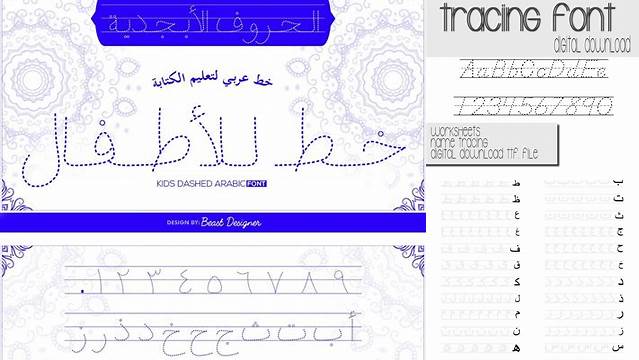
Free Arabic Tracing Font TTF Download For Beginners
Hey everyone! Looking for a fun and effective way to learn Arabic handwriting? You're in the right place! This article dives into everything about Arabic tracing fonts, offering you a fantastic free TTF download to get you started. We'll explore why tracing fonts are awesome for beginners, how to use them, and where to find the best resources. Get ready to level up your Arabic writing skills!
What are Arabic Tracing Fonts and Why Use Them?
Let's start with the basics, shall we? Arabic tracing fonts are specially designed fonts where the letters have a dashed or dotted outline. Think of them as the training wheels for your Arabic calligraphy journey. They're super helpful because they allow you to trace over the letters, guiding your hand and helping you learn the correct shapes and strokes. They are a fantastic tool, especially if you're a beginner. Using Arabic tracing fonts is like having a personal tutor guiding your hand. The dotted or dashed lines of the letters provide a clear path for you to follow, making it easier to learn the correct shapes and proportions. This method is particularly effective for beginners who may be unfamiliar with the complex curves and connections of Arabic script. By repeatedly tracing these letters, you develop muscle memory, which is crucial for handwriting. The practice helps build a strong foundation, allowing you to move on to freehand writing with confidence. Furthermore, tracing fonts make the learning process fun and engaging. They transform the often-challenging task of learning a new script into an interactive and enjoyable activity. This is a great way to make the learning process less daunting and more appealing. Imagine being a kid again, tracing your favorite cartoon characters - it is the same principle applied here. Tracing fonts are an excellent way to get started with Arabic handwriting. You'll quickly improve your penmanship and gain confidence in your ability to write this beautiful script. The repetitive nature of tracing helps in memorization, aiding in the recognition of letter forms and their various positions within words. This approach can be complemented with other learning methods like calligraphy. By combining these tools, you're providing a comprehensive approach to your learning. So, if you are thinking about learning Arabic, this is where you should start!
Benefits of Using Arabic Tracing Fonts
Alright, let's get into why these fonts are so beneficial. Firstly, they are perfect for beginners. Arabic tracing fonts provide a structured way to learn the Arabic alphabet. Secondly, they enhance muscle memory. Tracing the letters repeatedly helps your hand get used to the shapes and strokes. And thirdly, they are a confidence booster. As you trace and improve, you'll feel a sense of accomplishment. Using tracing fonts also brings the benefits of making learning the Arabic alphabet easier, building muscle memory, and boosting your confidence. When you trace the letters, you're not just copying shapes; you're internalizing the patterns, which creates muscle memory. This will prove very helpful when you start to write freehand. Furthermore, mastering Arabic handwriting can be an incredibly rewarding skill. It opens doors to a deeper appreciation of Arabic culture and can make it easier to read and understand written Arabic. The act of handwriting also engages your brain in a different way than typing, which can help improve memory and cognitive function. Arabic tracing fonts make the initial steps less intimidating and more enjoyable. The structured practice helps you avoid common mistakes and build good habits from the start. Another advantage of using Arabic tracing fonts is that they make the learning process more accessible. They offer an easy way to get started without needing expensive calligraphy tools or extensive knowledge of artistic techniques. You can simply download the font, print it out, and start practicing. This makes it an ideal resource for anyone with a computer and a printer. Finally, using tracing fonts can be a great way to integrate Arabic language learning into your daily routine. A few minutes of tracing each day can make a significant difference in your progress. So, grab a pen, print out your chosen font, and enjoy the process. Soon, you'll be writing Arabic with ease and confidence!
How to Use Arabic Tracing Fonts Effectively
Okay, let's talk about the best ways to use these fonts. Firstly, print them out. Make sure you have enough copies to practice. Secondly, use a good pen or pencil. This will help you control the tracing. And thirdly, practice regularly. Consistency is key! To get the most out of your Arabic tracing fonts, here's a breakdown of how to use them effectively. First, print the font. Make sure you have enough copies to practice. Print it in various sizes to get a feel for the different letter sizes. Larger fonts are great for beginners, while smaller sizes can help you refine your precision. Choose the right tools. A pencil with a sharp point is ideal for beginners, as it allows for easy correction. As you get more confident, you can try using different pens or markers to experiment with different line weights and styles. Start slowly and focus on accuracy. Don't rush! Take your time to trace each letter carefully. Focus on getting the strokes right and following the direction of the lines. Repeat each letter multiple times to build muscle memory. Consistency is key. Set aside a specific time each day or week to practice. Even 15-30 minutes of focused practice can make a big difference. Combine with other resources. Use the tracing fonts in combination with other learning materials, such as alphabet charts, online tutorials, and workbooks. This will give you a more comprehensive understanding of the Arabic script. Track your progress. Keep a notebook or folder to track your progress. You can also take photos of your work to see how your handwriting improves over time. Don't be afraid to experiment. Once you get the hang of tracing, try experimenting with different styles, such as calligraphy. Most importantly, have fun! Learning a new script should be enjoyable. Embrace the process and celebrate your progress.
Tips for Improving Your Arabic Handwriting
Here are some additional tips to help you improve your Arabic handwriting. First, pay attention to the direction of the strokes. Arabic letters are written from right to left. Secondly, practice the connections between the letters. Arabic letters often connect, so understanding how they join is important. Thirdly, learn the different forms of each letter. Each letter can have different forms depending on its position in the word. To further improve your Arabic handwriting, consider these additional tips. Pay attention to the proportions of the letters. This means paying attention to the height, width, and spacing of each letter. This will help your handwriting look neater and more balanced. Learn about the different styles of Arabic calligraphy. Familiarize yourself with the different styles of Arabic calligraphy, such as Naskh, Ruq'ah, and Thuluth. Each style has its own distinct characteristics and rules. You can then incorporate these features into your handwriting. Practice consistently. The more you practice, the better you'll become. Set realistic goals and celebrate your progress. Join a community of learners. Interact with other Arabic language learners online or in person. This can provide motivation and support. The more comfortable you become with the letters and the structure, the faster you will improve. So, get ready and start writing! Learning to write in Arabic is very rewarding.
So there you have it! Arabic tracing fonts are an awesome resource for anyone learning to write the Arabic script. Download your free TTF today, start tracing, and watch your skills improve. Happy writing!